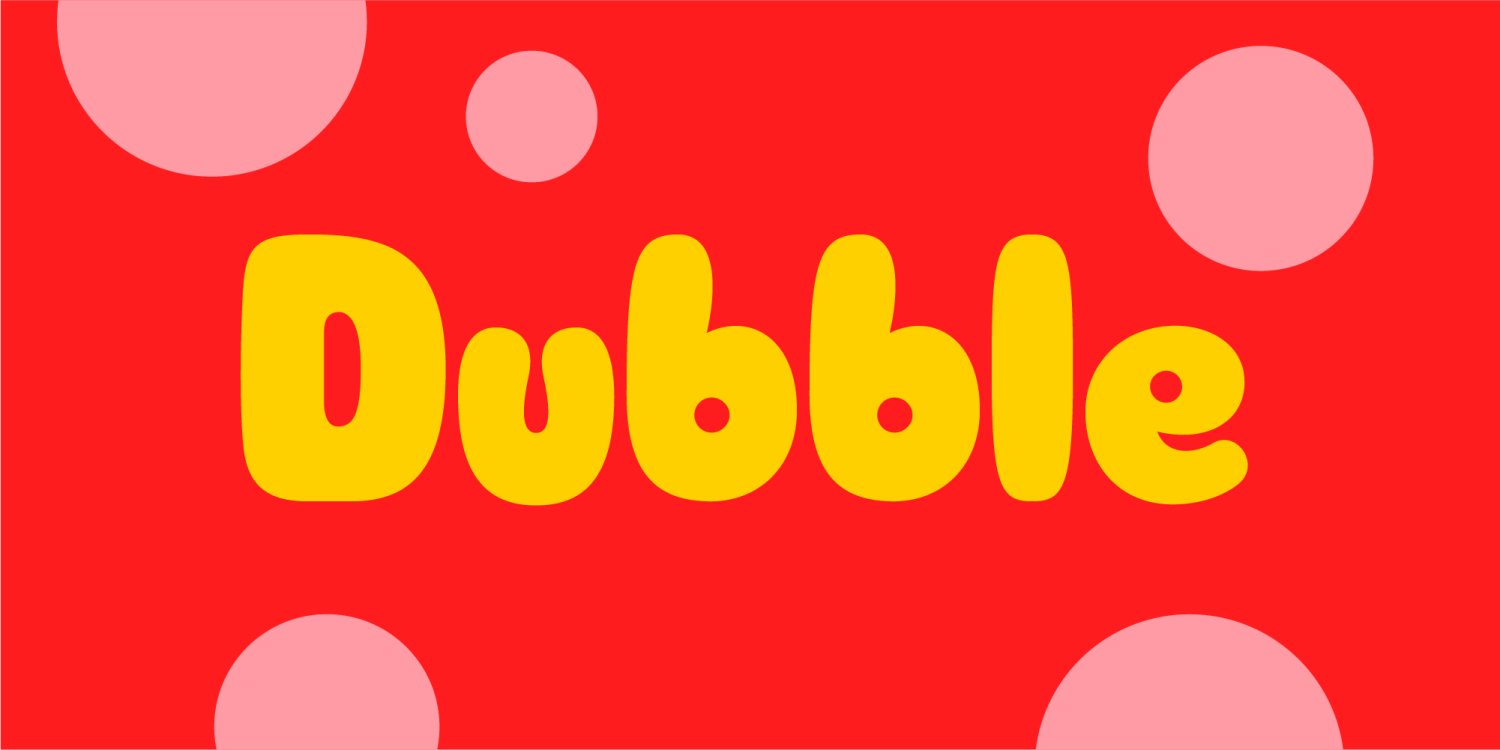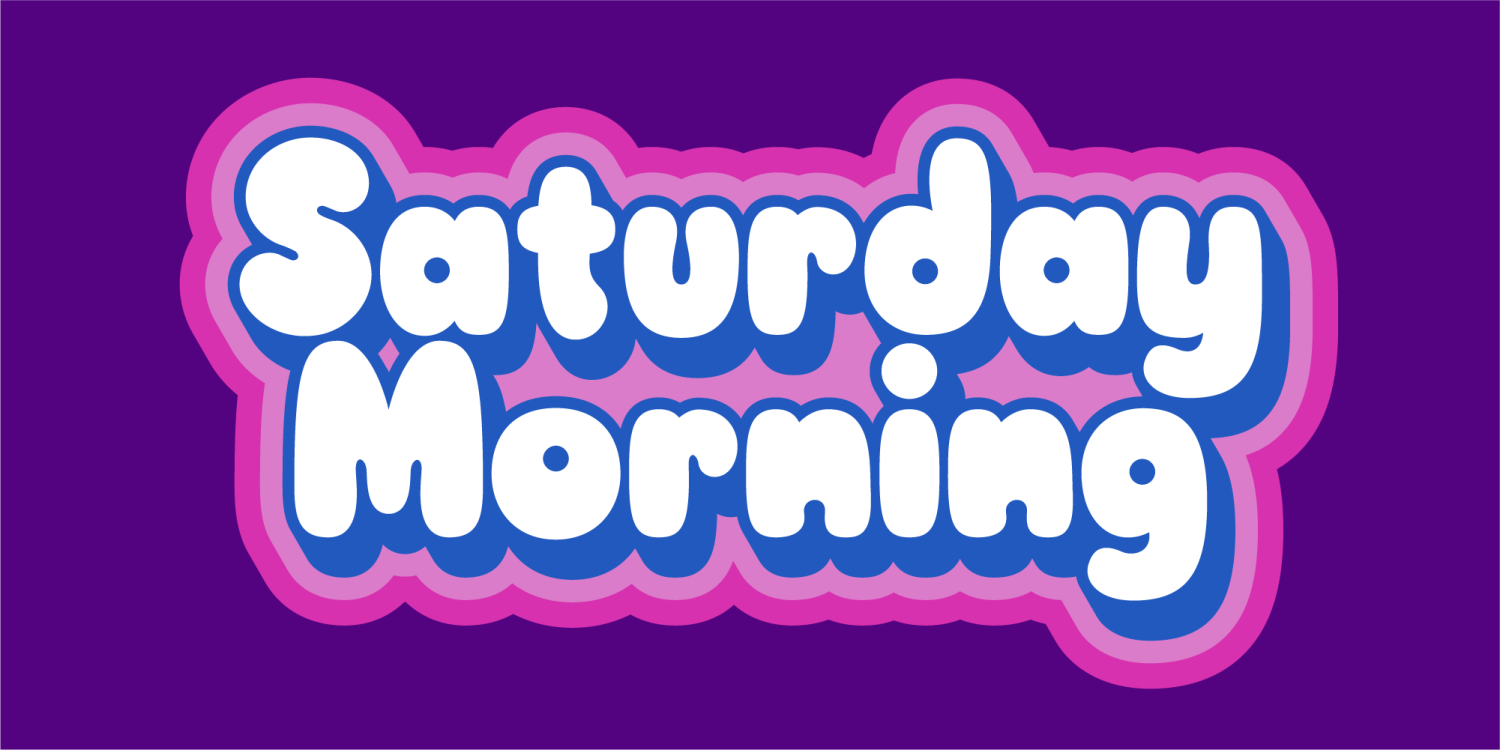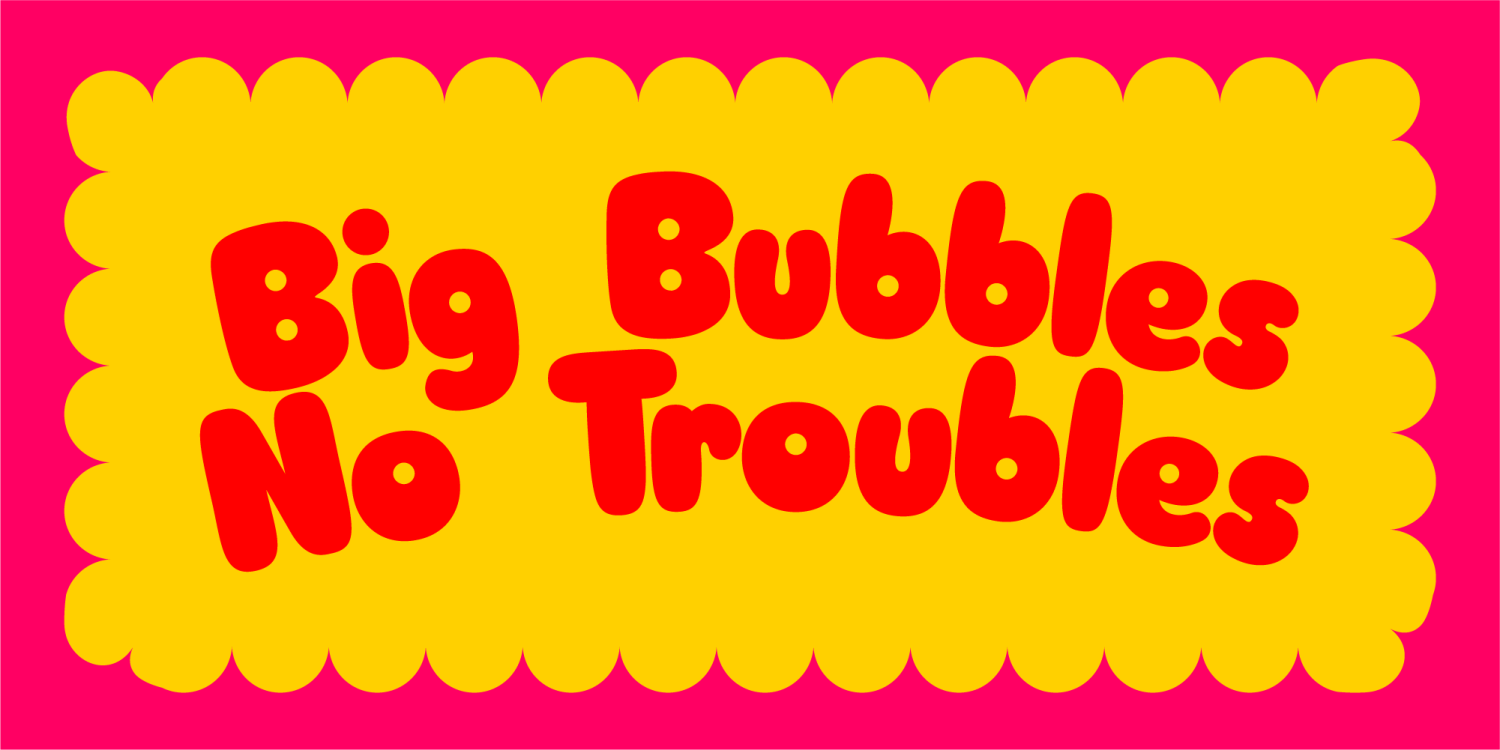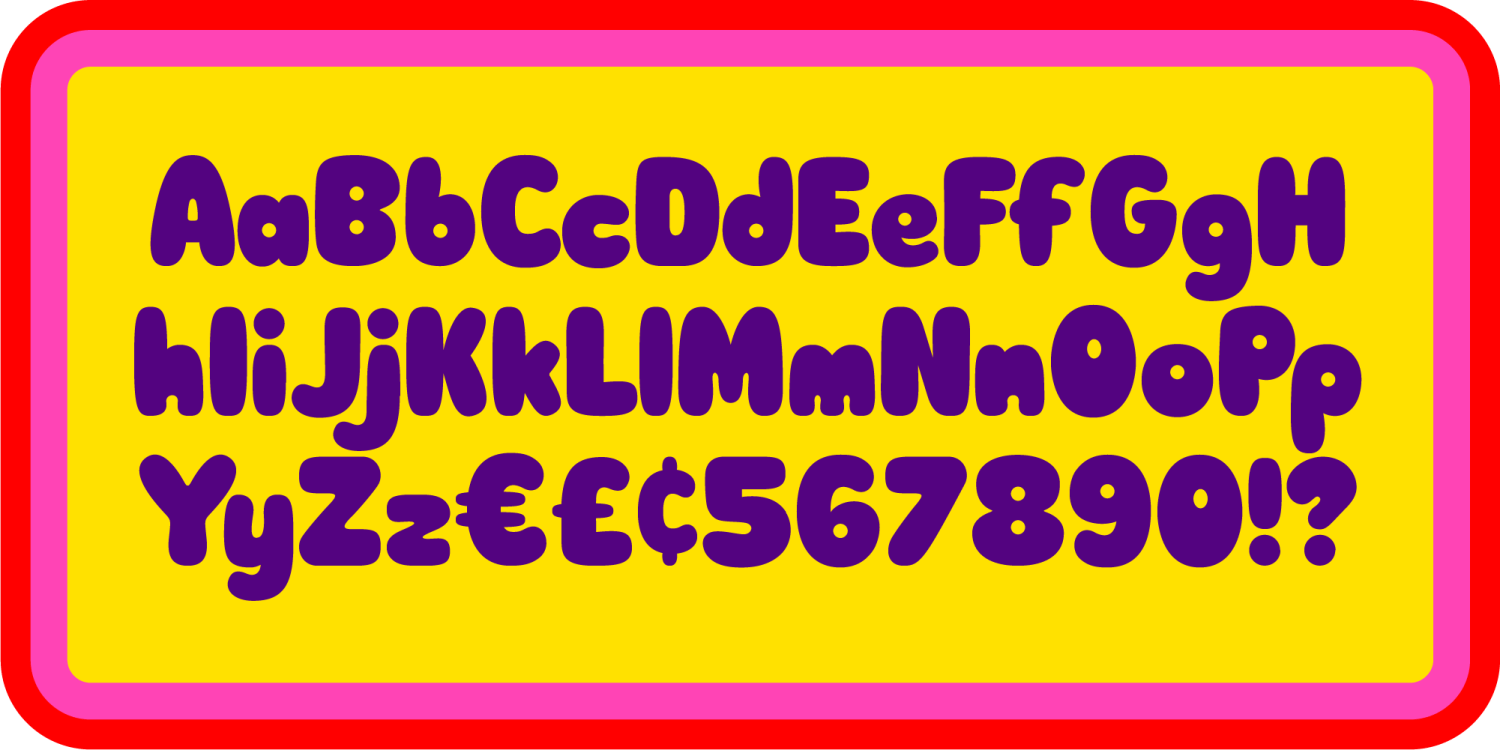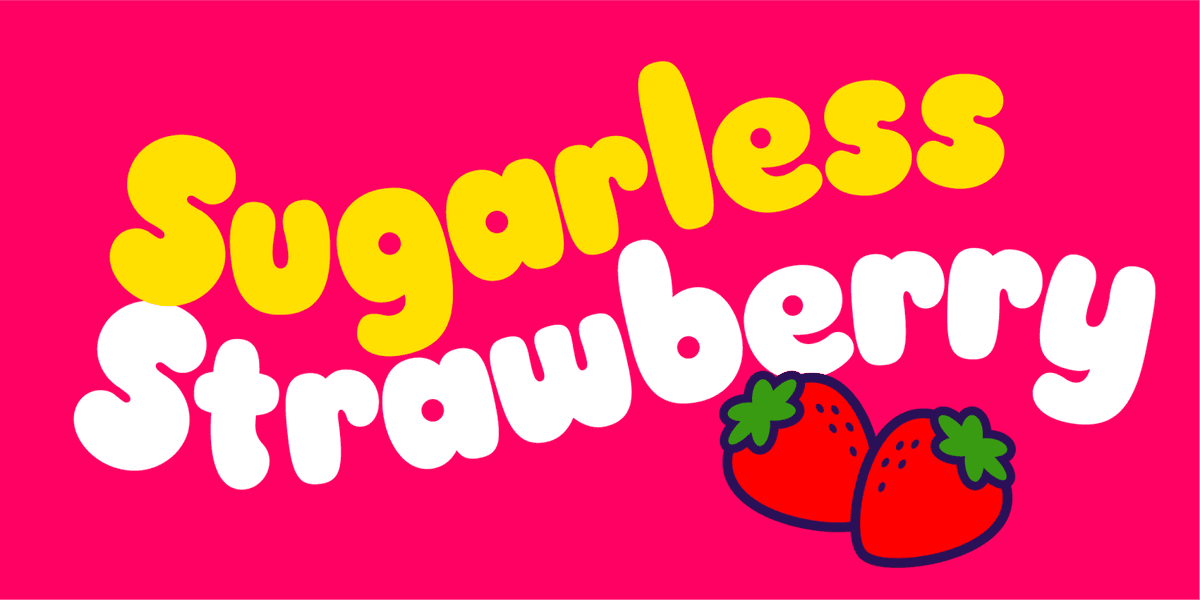
Dubble is a delightfully playful font inspired by the vibrant world of 1980s bubble gum mania! Its bubbly curves pay homage to the era when bubblegum wrappers were as iconic as the sweet, sticky goodness inside. Let your text take a nostalgic trip down memory lane with Dubble—a typeface that's as sweet as a bubblegum pop hit!